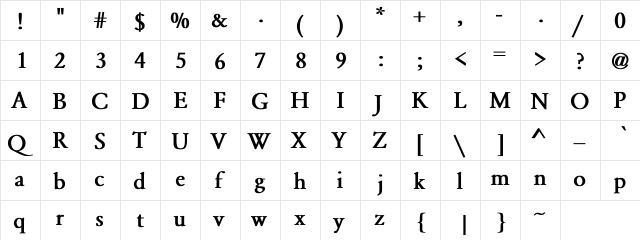
Smedley Bold Regular
Design Context for Smedley Bold Typeface
Smedley Bold is a composed and adaptable typeface that performs quietly and consistently across a wide range of design contexts. The heavy weight commands attention and anchors typographic hierarchies.